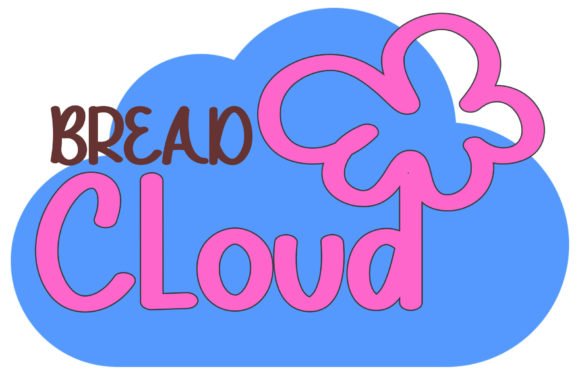
The Perfect Touch for Your Creative Projects: Cloud Bread Font
Have you ever stared at a blank page, trying to bring a character to life or craft the perfect phrase for a children’s book cover? That’s exactly where I was when I first discovered the Cloud Bread Font. It’s a game-changer for designers looking to add a playful, handwritten touch to their projects.
This friendly font is designed to bring joy and whimsy to your designs. Whether you’re creating cartoon-inspired art, developing a new brand identity, or simply need a font that captures the essence of childhood wonder, Cloud Bread Font is an excellent choice. With its versatility and charm, it’s no wonder designers have fallen in love with this delightful font.
Cloud Bread Font Key Features
- Font Family: Cloud Bread Font is a unique, handwritten font with a casual and playful feel.
- Unique Characteristics: Features a mix of cursive and script elements, giving it a distinctive and eye-catching appearance.
Cloud Bread Font Review
I recently had the chance to work with the Cloud Bread Font, and I have to say it’s a unique and intriguing choice. ✨ Here are a few things that stood out to me:
- It’s a great choice for food blogs and recipes, as it evokes a sense of airiness and lightness.
- The font is highly legible, even at smaller sizes, making it suitable for body text.
- The subtle texture and softness of the font add a touch of warmth and personality to digital designs.
- The font may not be the best choice for formal or professional designs, as it’s a bit too casual and whimsical.
- Some characters may not render well at smaller sizes, which could be a problem in certain design contexts.
Overall, I think the Cloud Bread Font is a great choice for the right project. It’s perfect for designers who want to add a touch of personality and whimsy to their work. With its unique texture and softness, it’s a great way to add some visual interest to digital designs. Just be sure to consider its limitations and use it thoughtfully.
Tips: Use the Cloud Bread font to add a playful touch to your designs, and pair it with other fun fonts for a unique look.
Tips: Use the Cloud Bread font to add a whimsical touch to your vector graphics and illustrations.
Tips: Use the Cloud Bread font to add a playful touch to your presentations and documents.
The Cloud Bread font is perfect for:
– Food and beverage branding
– Children’s party invitations
– Whimsical greeting cards
– Playful social media graphics
Alternatives to Cloud Bread Font for Designers
Pacifico is a beautiful, elegant font perfect for designing romantic or vintage-themed projects. Its cursive style and smooth lines make it an ideal choice for wedding invitations, love quotes, or any project that requires a touch of romance.
Compared to Cloud Bread Font, Pacifico has a more refined and sophisticated look, while Cloud Bread Font has a more playful and casual feel. Use Pacifico when you want to add a touch of elegance and sophistication to your design.
Great Vibes is a modern, handwritten font ideal for creating a fun and energetic vibe in your designs. Its unique style and flair make it perfect for designing quotes, posters, or social media graphics.
Compared to Cloud Bread Font, Great Vibes has a more dynamic and playful feel, while Cloud Bread Font is more casual and relaxed. Use Great Vibes when you want to add a burst of energy and excitement to your design.
Carolyna Pro is a modern, elegant font perfect for designing luxury or high-end projects. Its sophisticated style and refined lines make it an ideal choice for creating a premium feel in your designs.